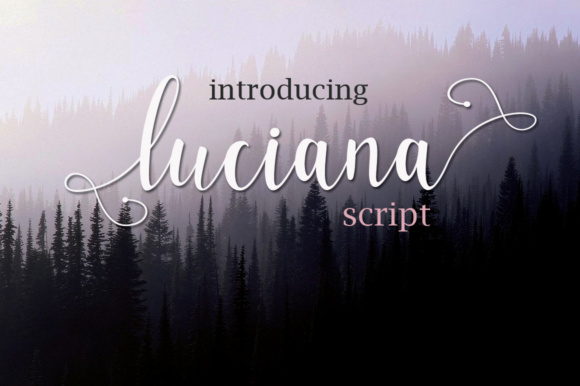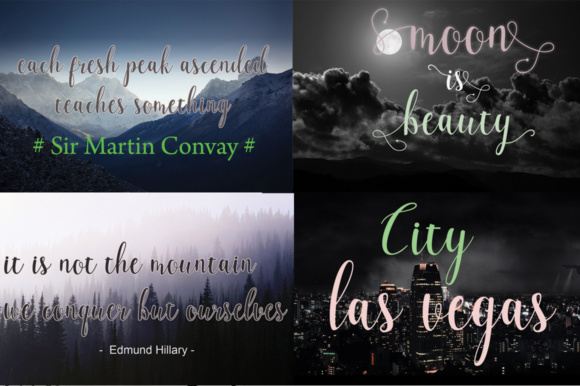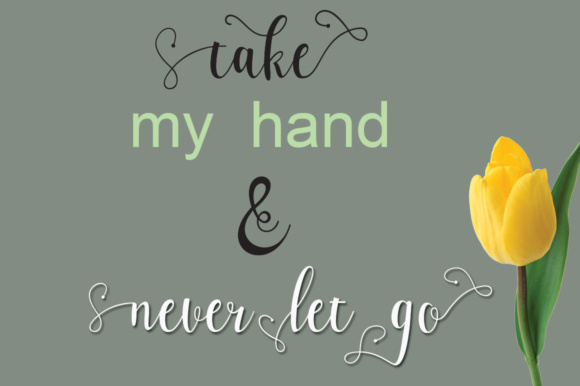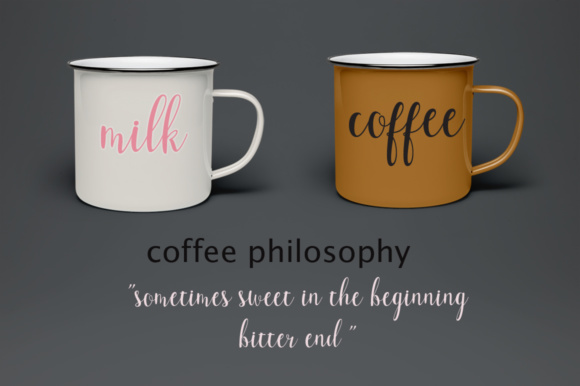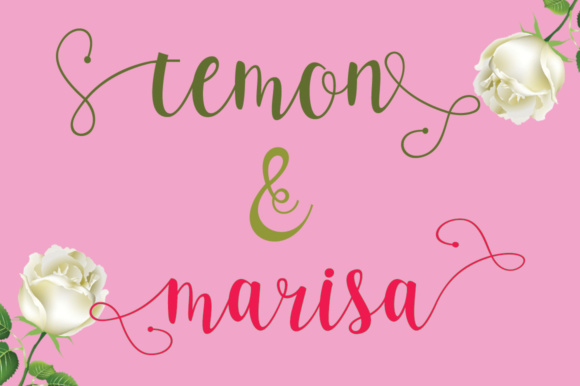
Luciana Script 2 Font
About Luciana Script 2 Font
Luciana is a beautiful calligraphy typeface with a modern style. Luciana is suitable for a wide range of products such as wedding invitations, greeting cards, correspondence, and various other purposes.